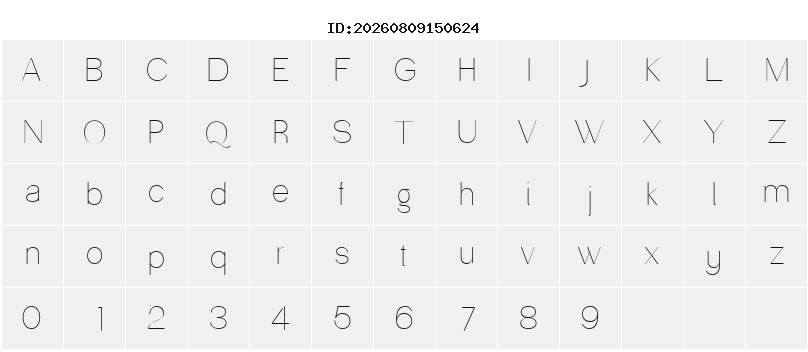
• Font Name: PassionSansPDaa
• Font Style: Hairline
• Full Font Name: PassionSansPDaa-Hairline
• PostScript Name: PassionSansPDaa-Hairline
About PassionSansPDaa.ttf
PassionSansPDaa.ttf is a modern, elegant sans-serif font designed for ultimate readability and visual harmony. Perfect for branding, headlines, web design, and print materials.